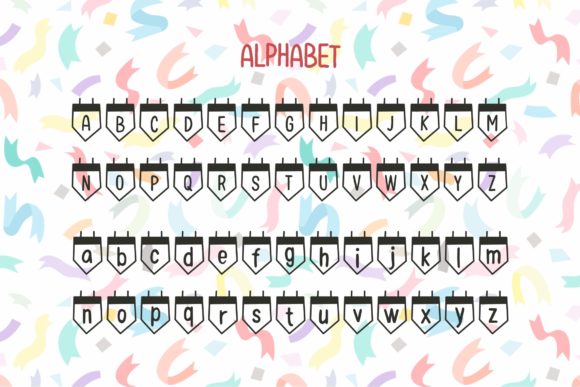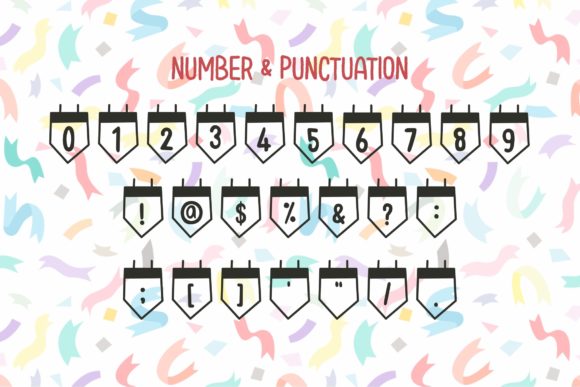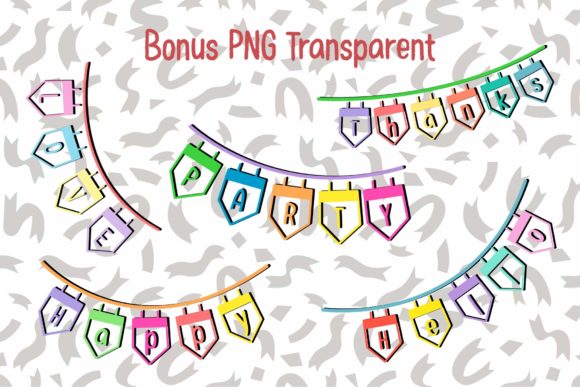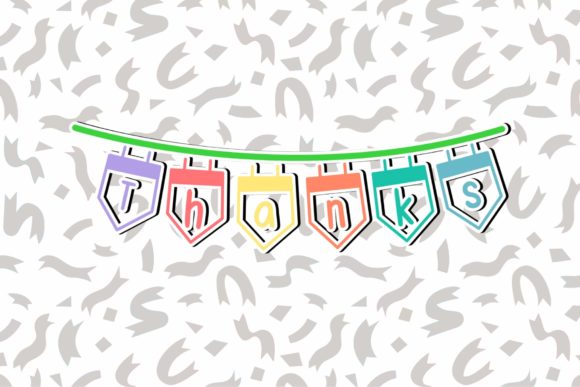
Hello Party Font – Free Download
Introduction to Hello Party Font
Hello Party is a fun and unique decorative font.
This font is the perfect fit for all of your logos, branding, social media, crafty DIY projects, and much more .
Key Features of Hello Party Font